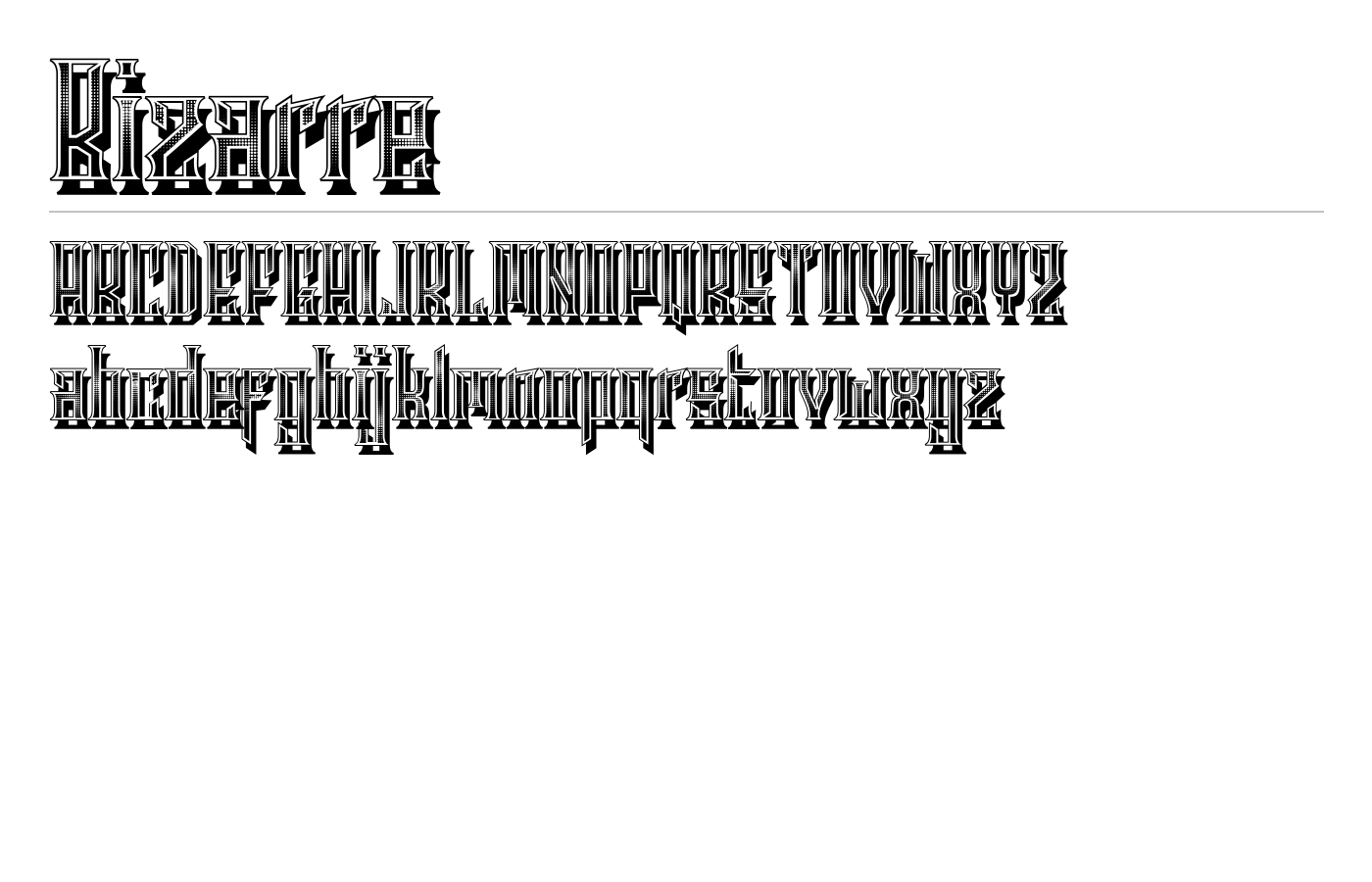
Bizarre Font is a bold, condensed serif typeface with an intricate, vintage-inspired design featuring high contrast and ornate, sharp-edged details. Its decorative style makes it perfect for eye-catching headlines, posters, and branding projects that aim for a dramatic, old-world charm with a modern twist. This font works best where a unique, bold statement is needed rather than for long body text.
Bizarre Font
About Bizarre Font
| Font family | Bizarre Font |